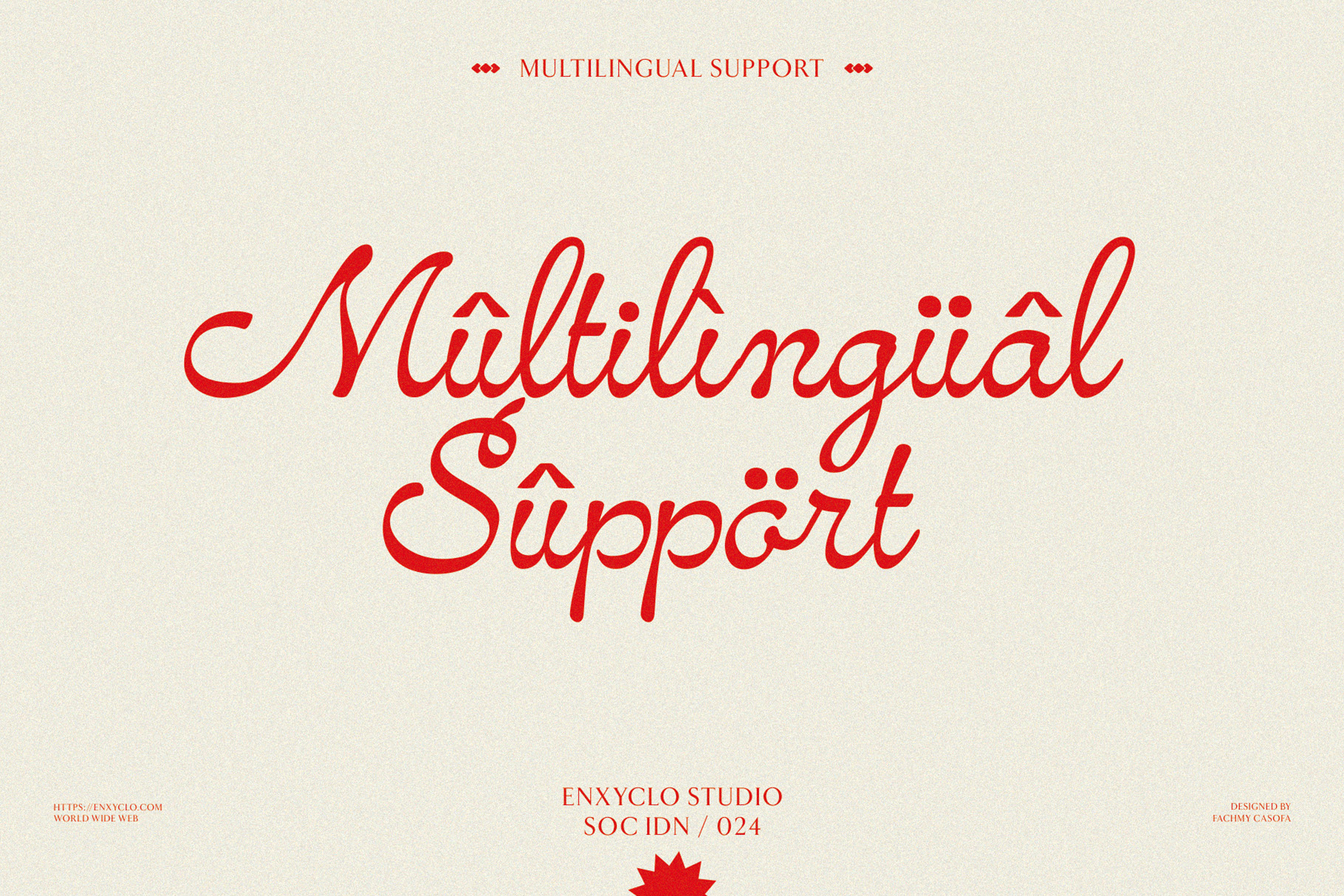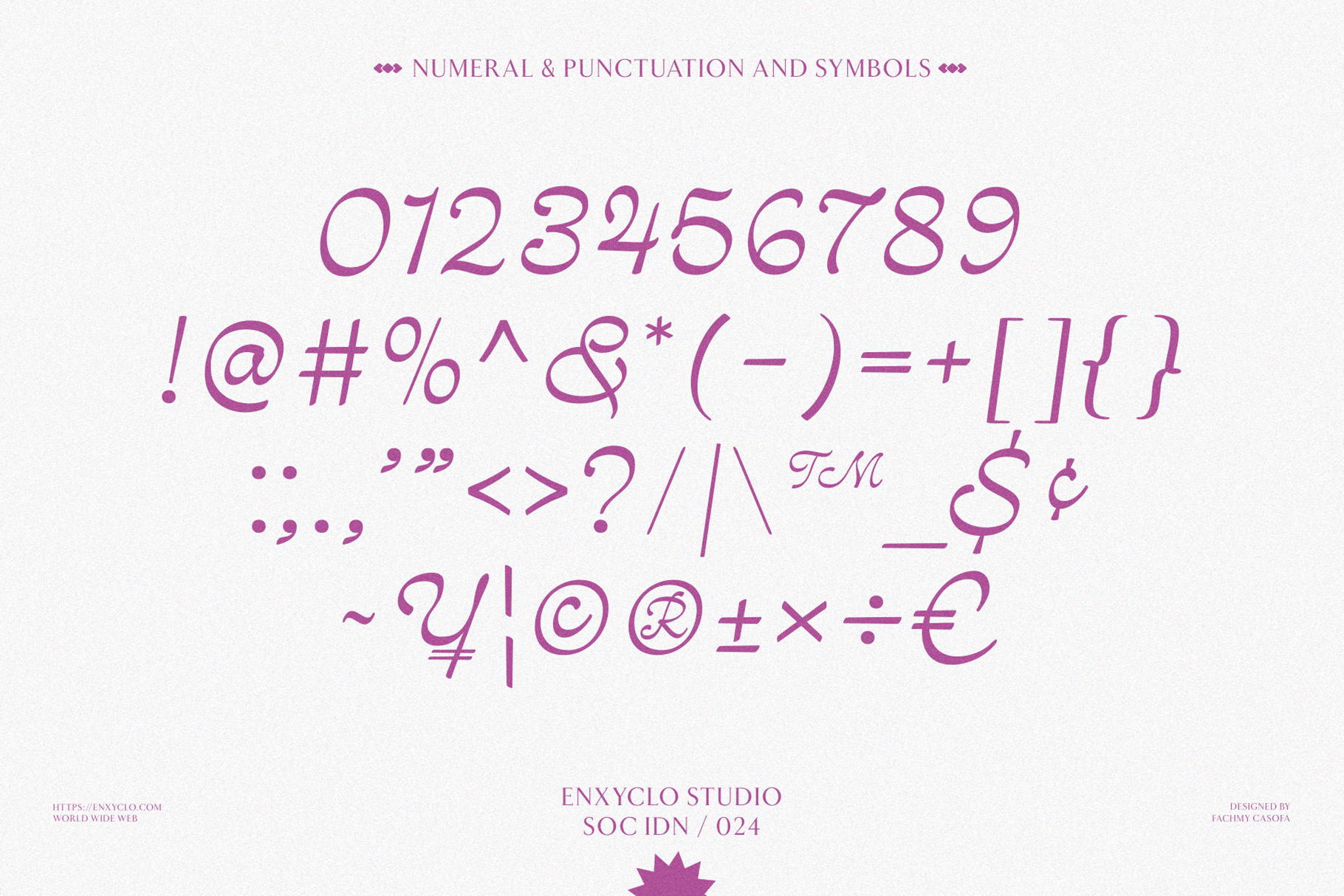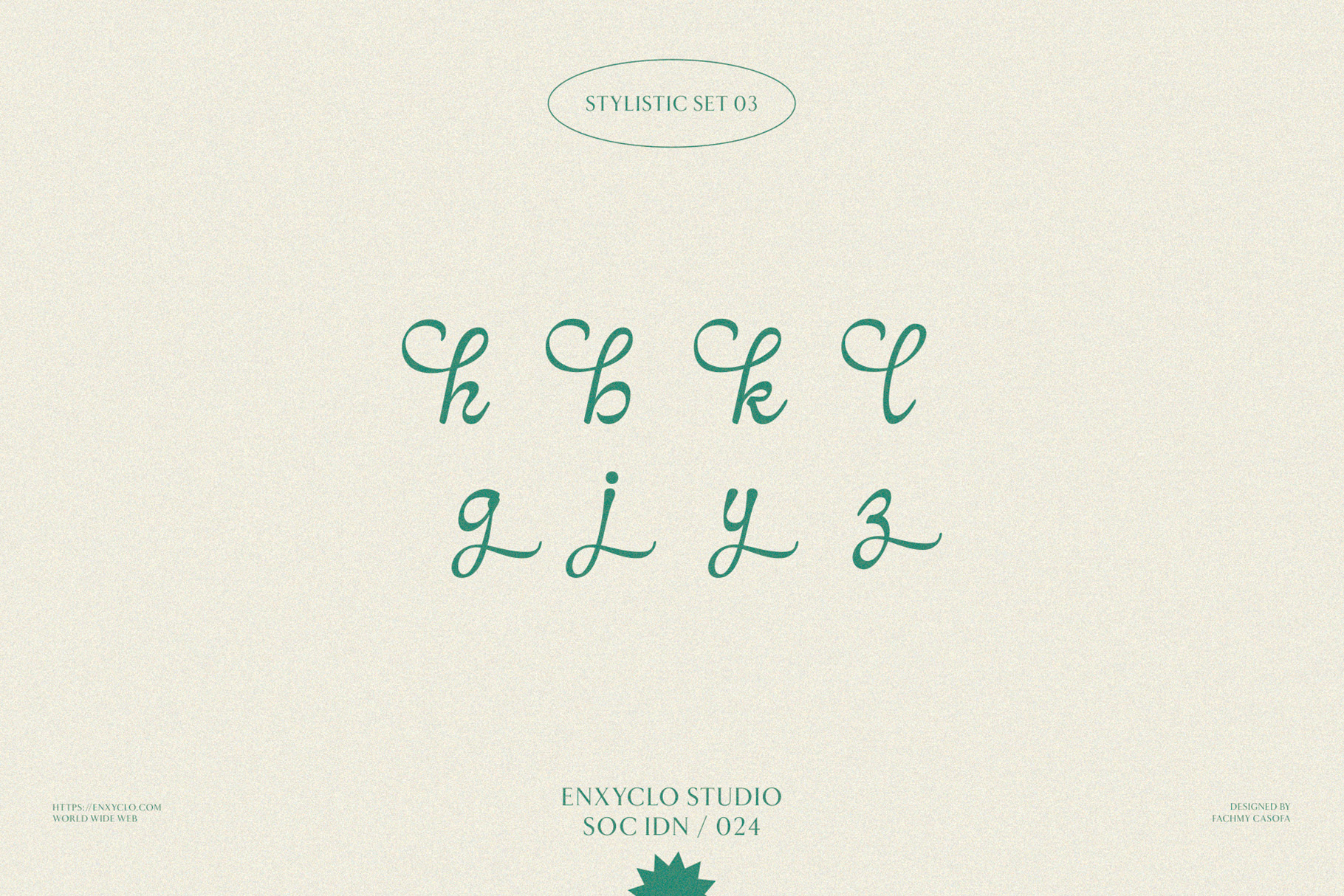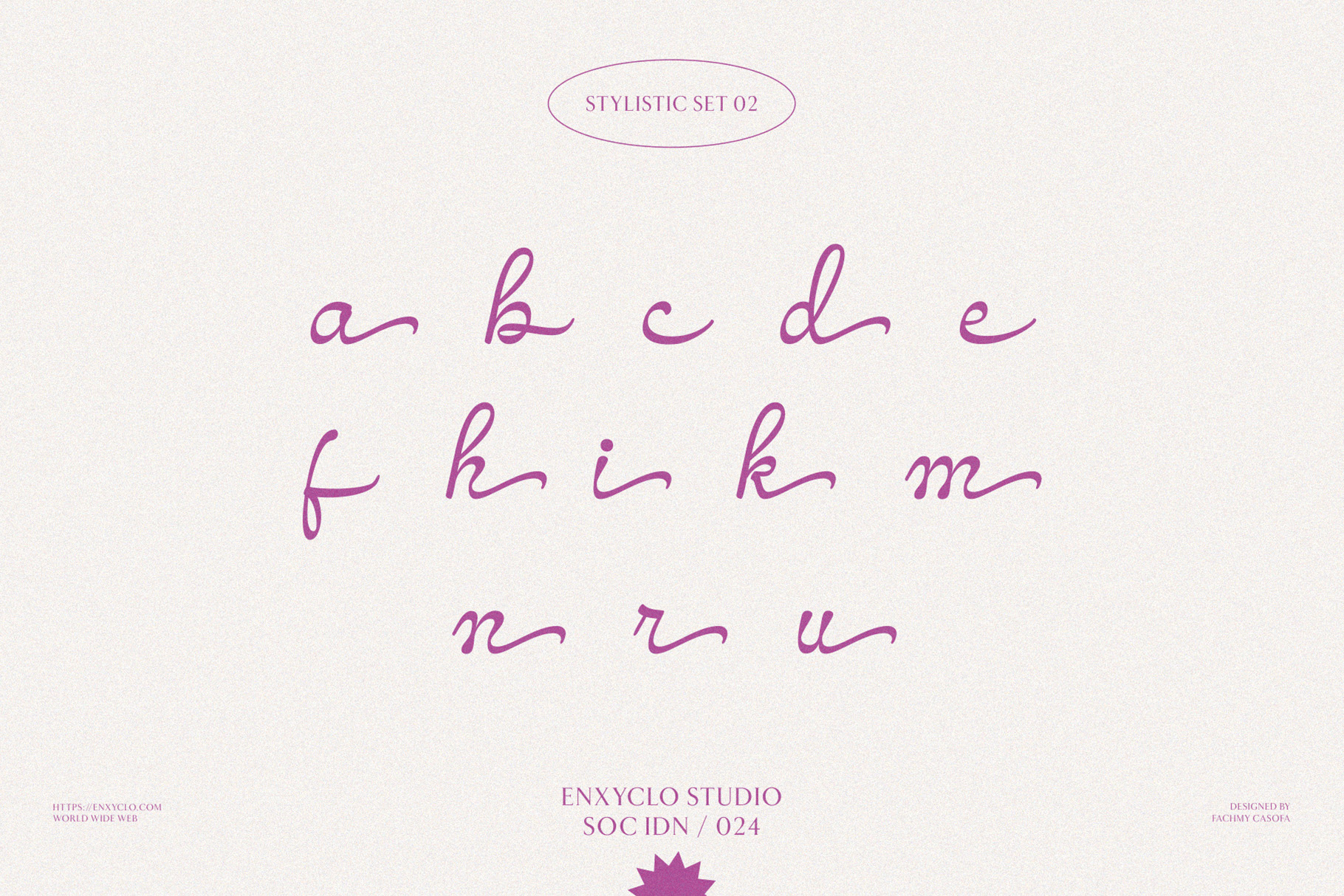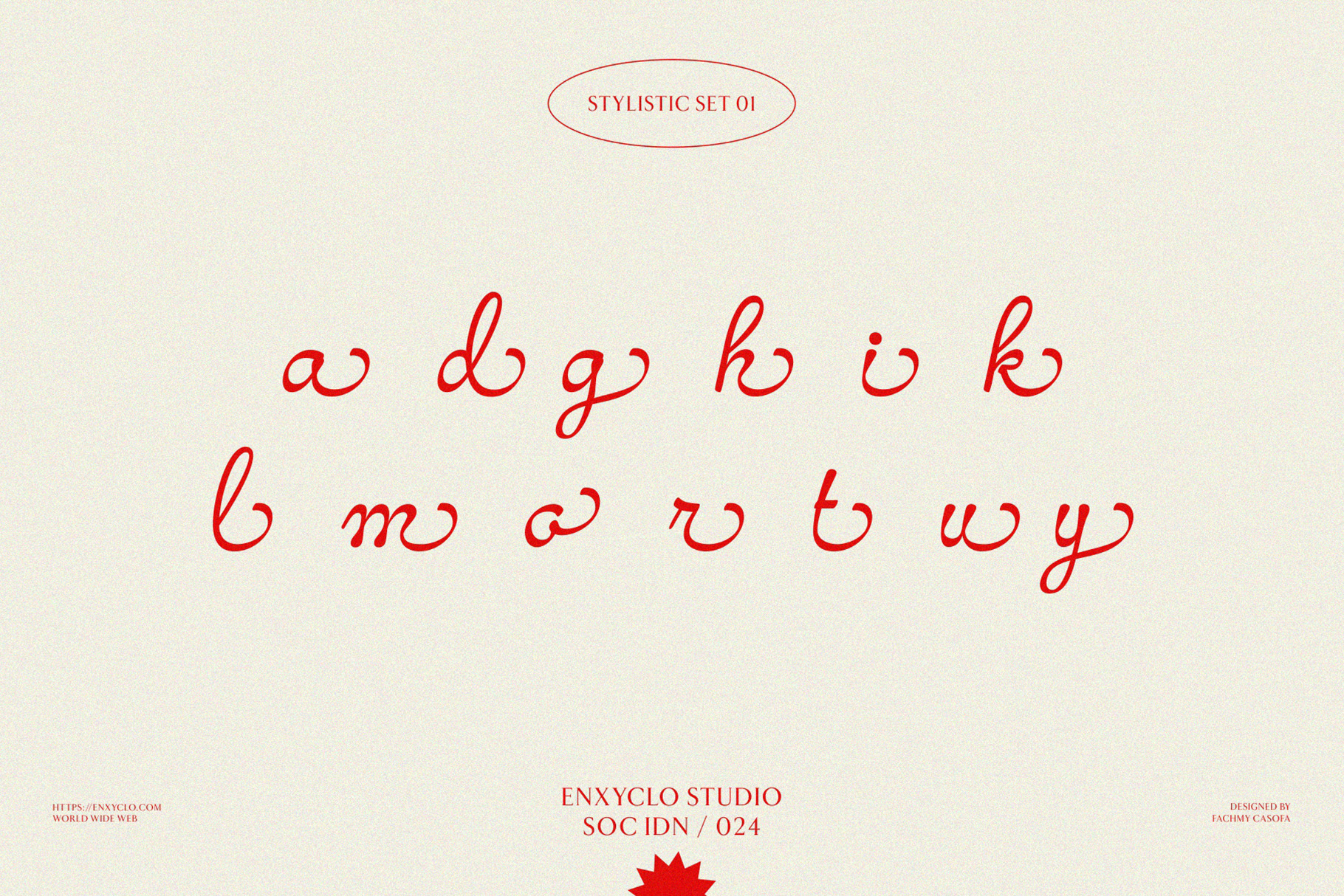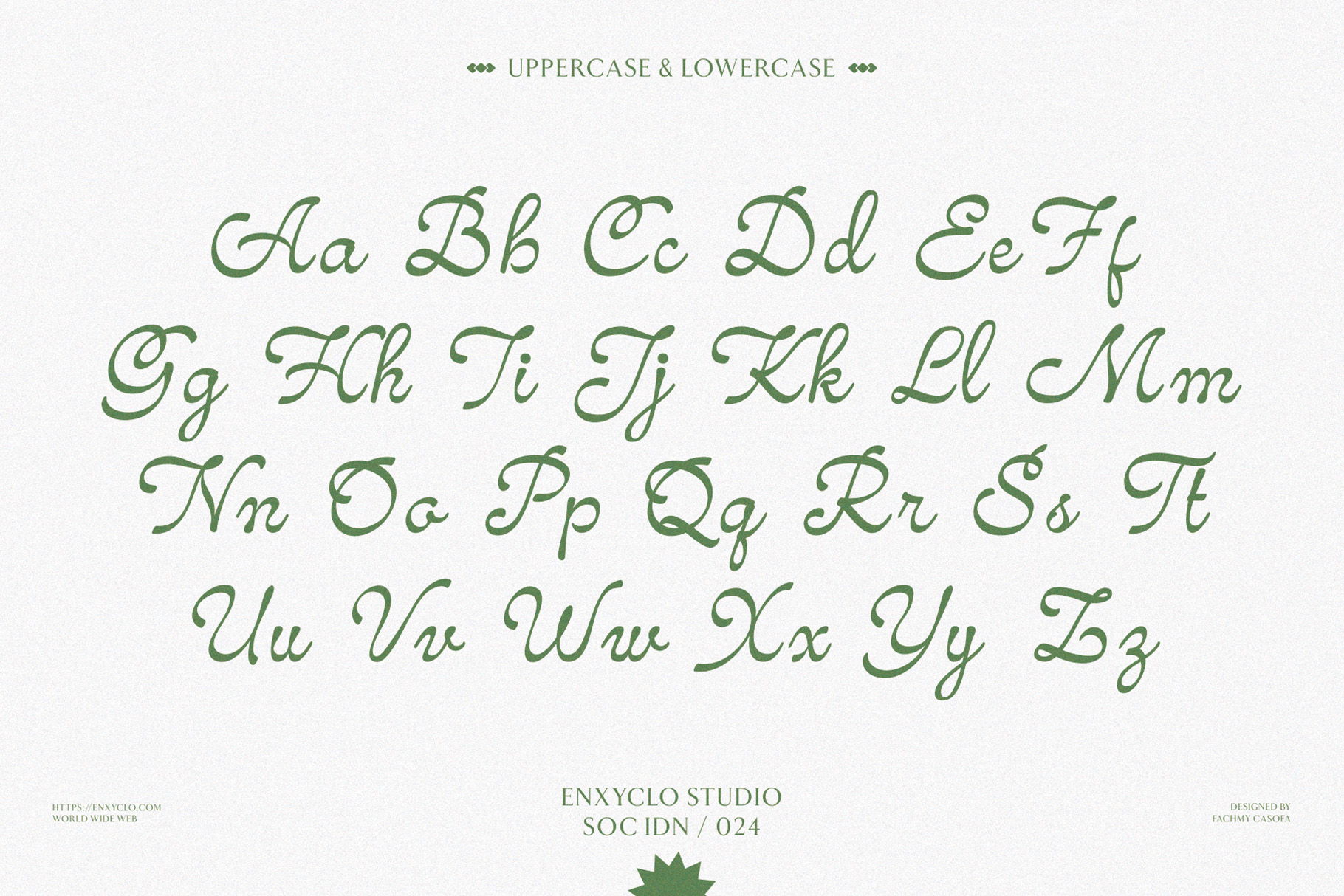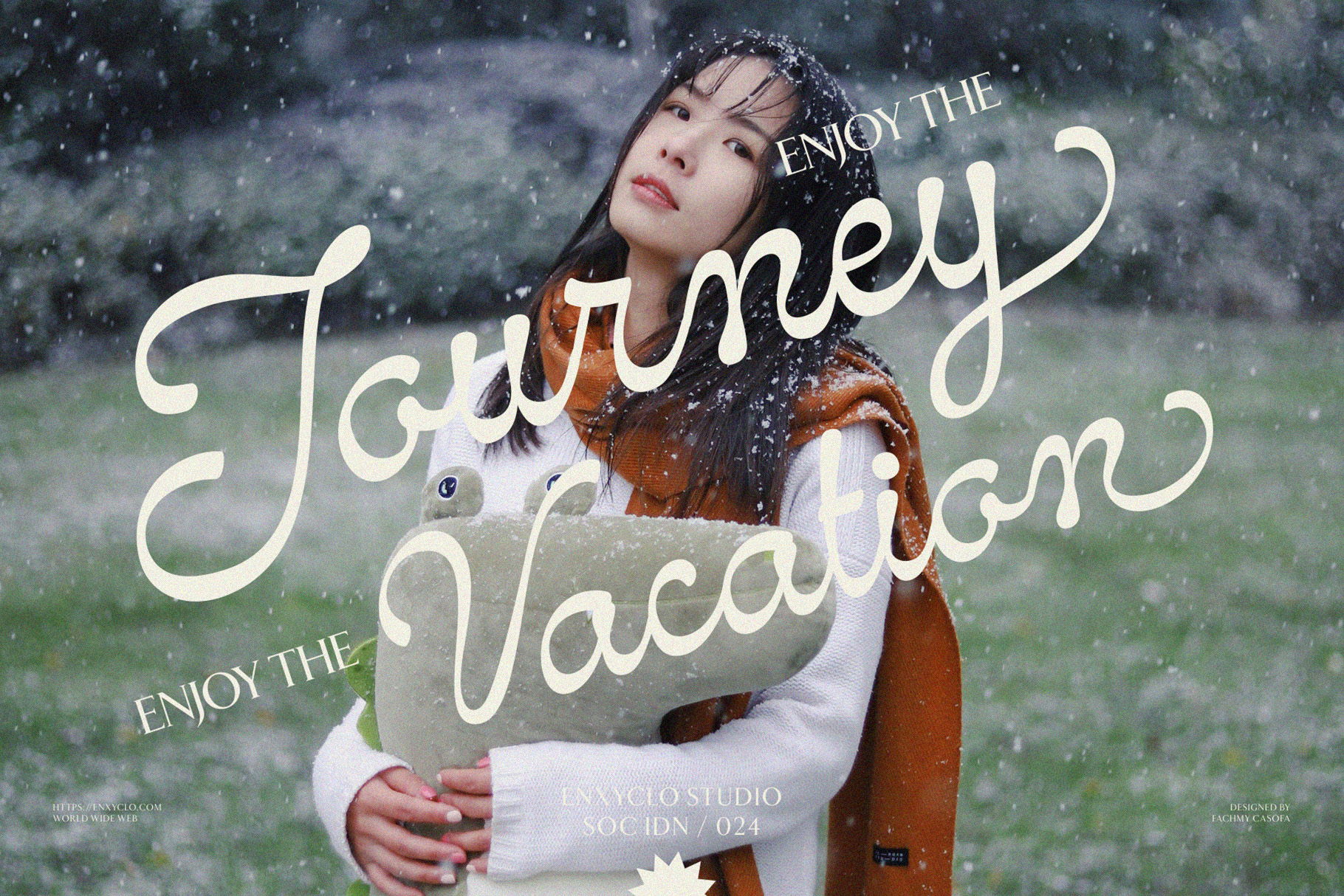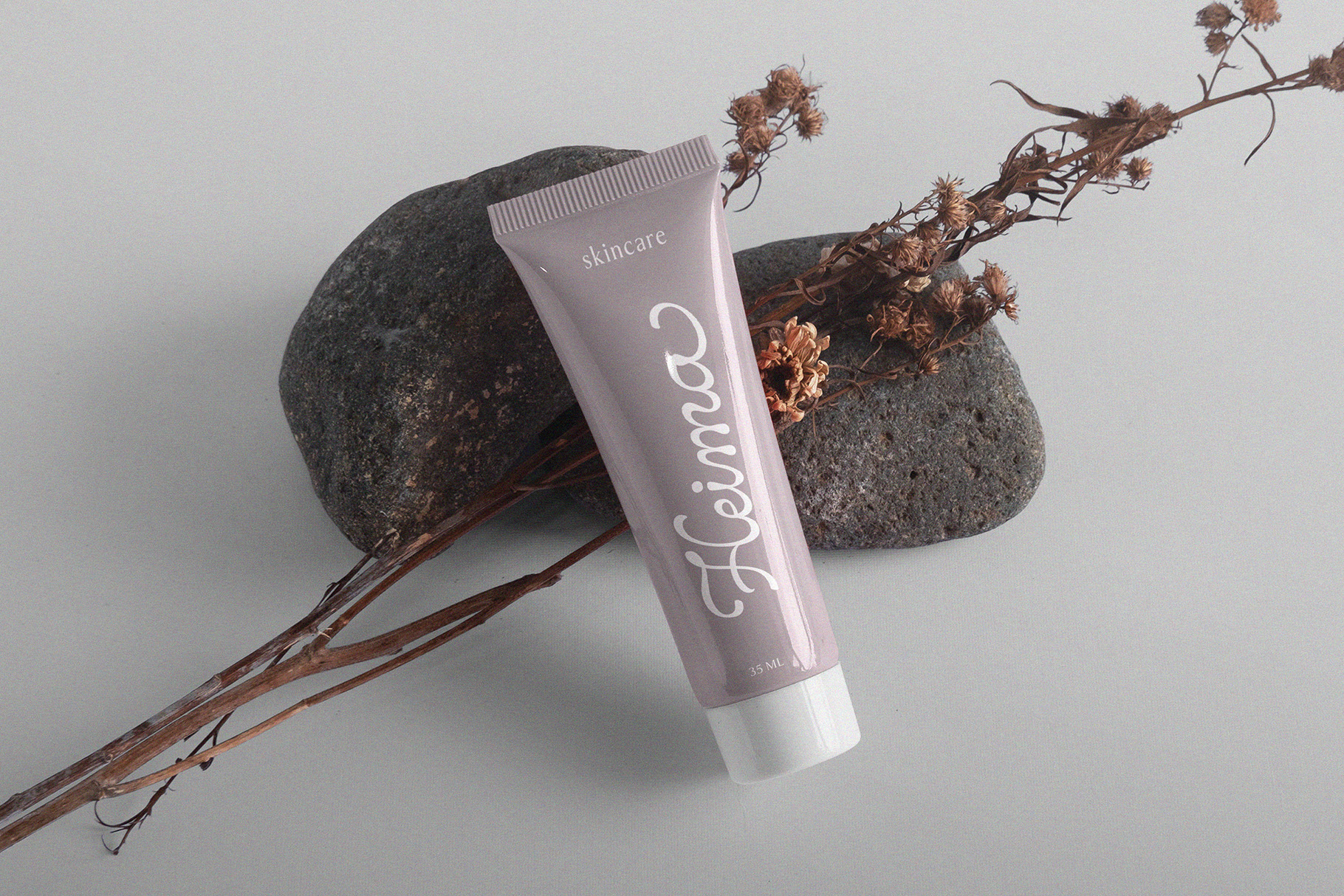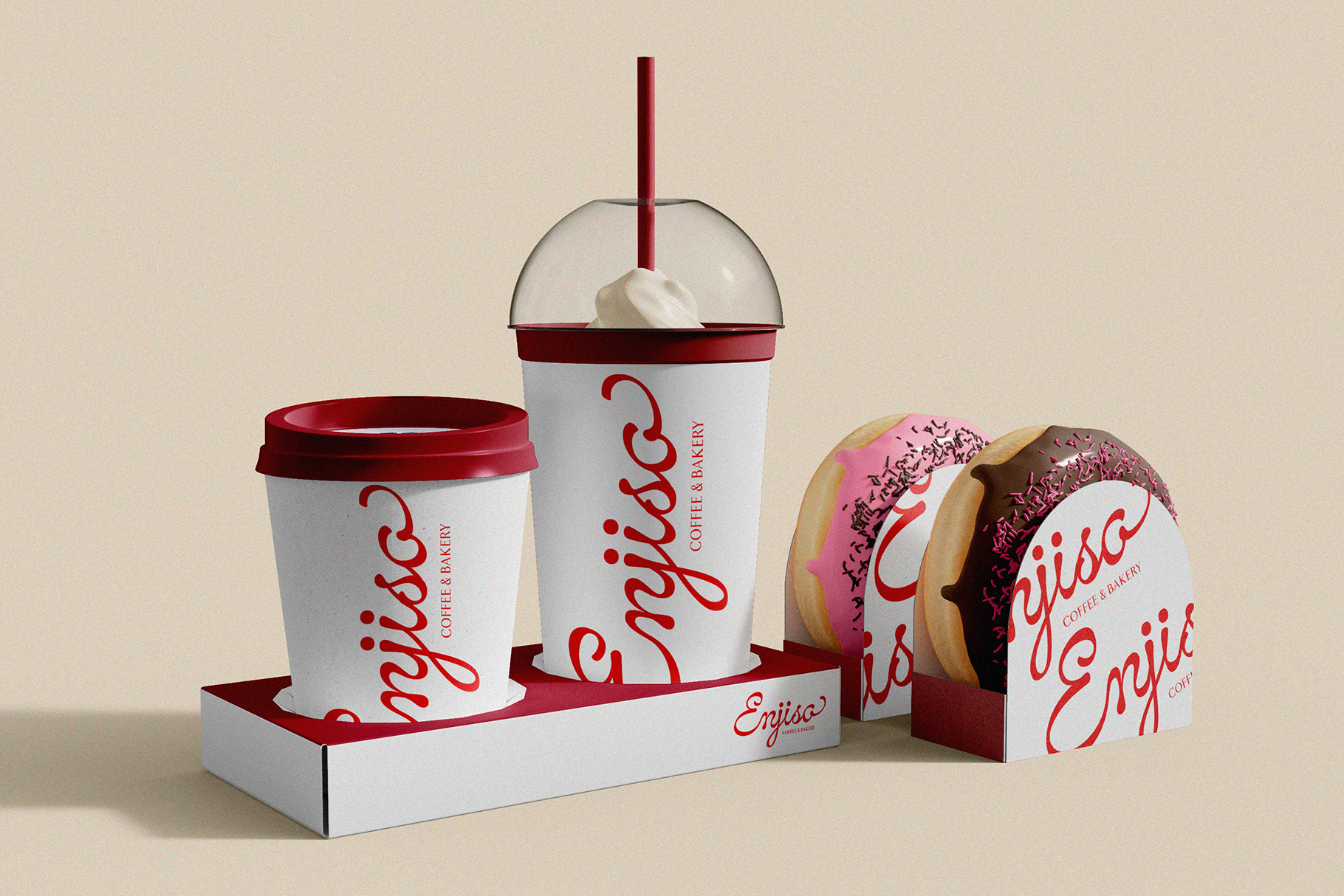
NCL Amhiney – Modern Casual Script Font
NCL Amhiney is a modern casual script display font. Masterfully designed to become a true favorite, this font has the potential to bring each of your creative ideas to the highest level! It was purposely crafted to be used in large point sizes, although it doesn’t lose its magic in small point sizes. It is perfect for headline, digital ads, magazines, website, poster, branding, and logos. No matter the topic, this font will be an incredible asset to your fonts’ library, as it has the potential to elevate any creation. With this beautiful font, absolutely you can make your project stand out from the rest.
279 Unique Glyphs
Stylistic Set 1-3
Uppercase & Lowercase
Numeral, Punctuation & Symbols
Multilingual Support